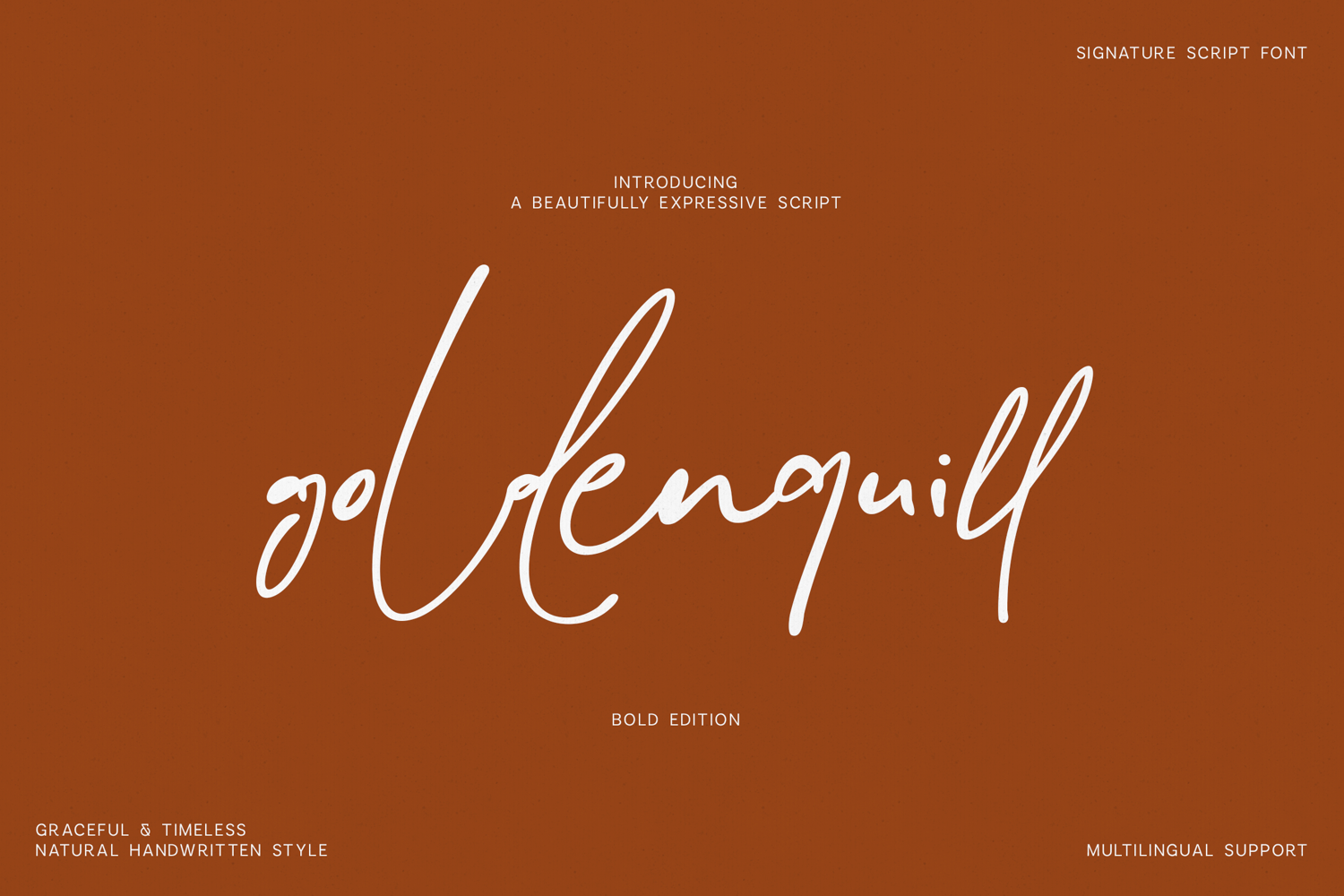
Introducing Glenquil, an elegant signature script font designed to bring a natural handwritten touch to your creative projects. Featuring three distinctive styles—Regular, Rounded, and Rough—this font delivers an authentic handwritten feel that works beautifully across both modern and timeless designs.
With smooth flowing strokes, refined letterforms, and extensive multilingual support, Glenquil is ideal for logos, branding, wedding stationery, invitations, social media, packaging, editorial layouts, product labels, photography watermarks, and much more.